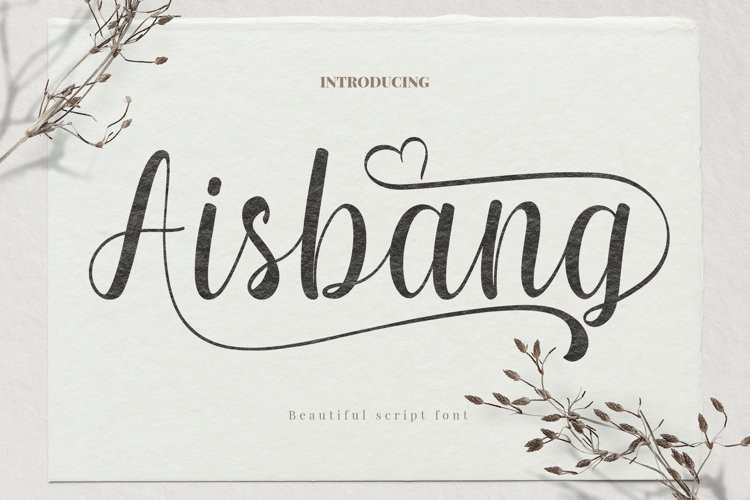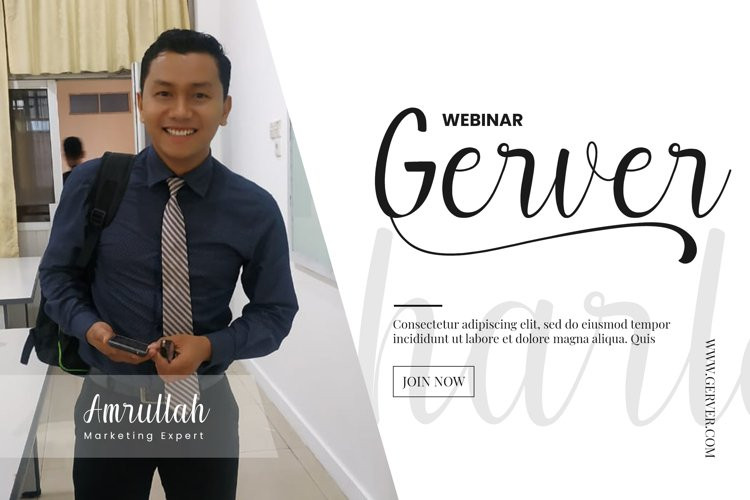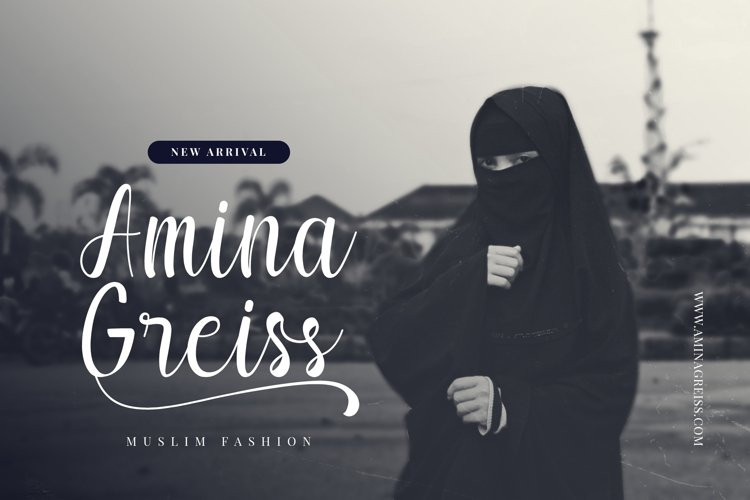
Aisbang Font
Aisbang FontAisbang is a smooth, elegant font and flowing handwritten font. It has a beautiful and balanced character and as a result, fits into a wide set of designs. This font has varied basic features, smooth lines, beautiful glyphs and stunning alternatives. Add to your most creative ideas and watch how they come to life, Alternate characters are divided into several Open Type features such as Swash, Stylistic Sets, Stylistic Alternates, Contextual Alternates. The Open Type feature can be accessed using Open Type savvy programs such as Adobe Illustrator, Adobe InDesign, Adobe Photoshop version of Corel Draw X, and Microsoft Word. And this Font has provided PUA unicode (custom coded font). so that all alternative characters can be easily accessed in full by a craftsman or designer.